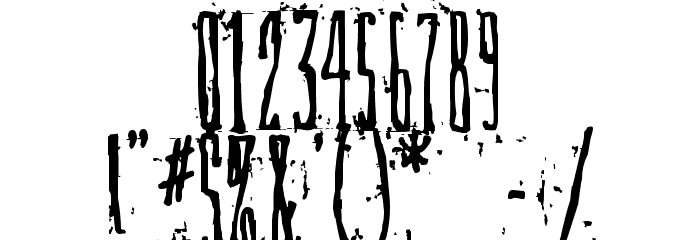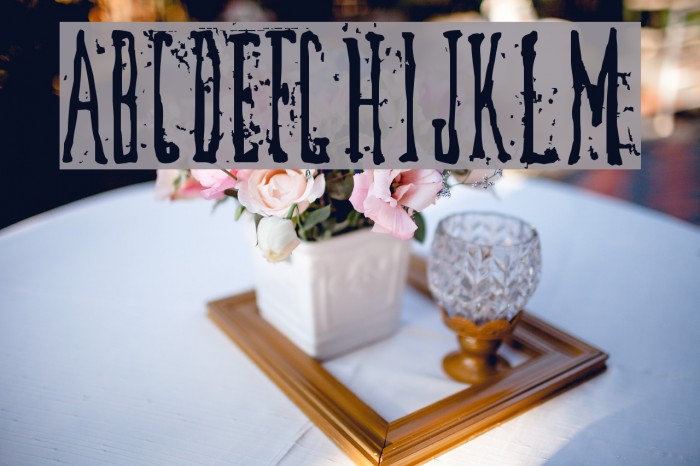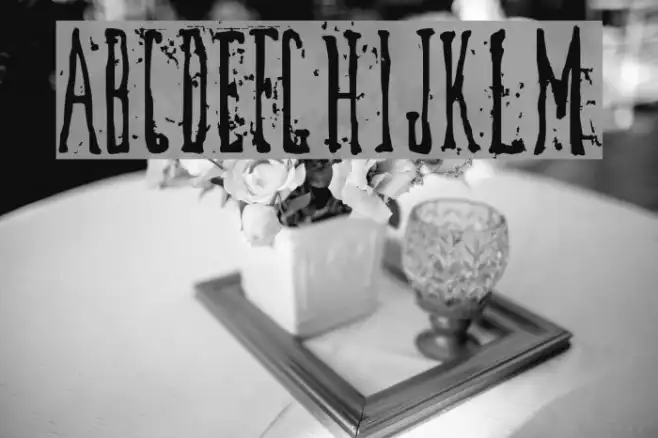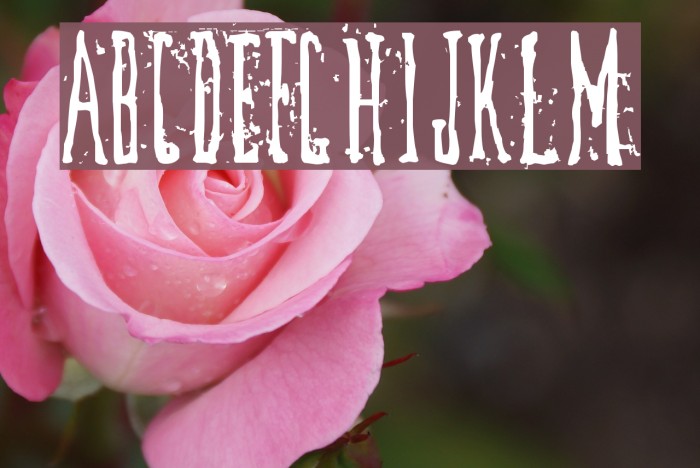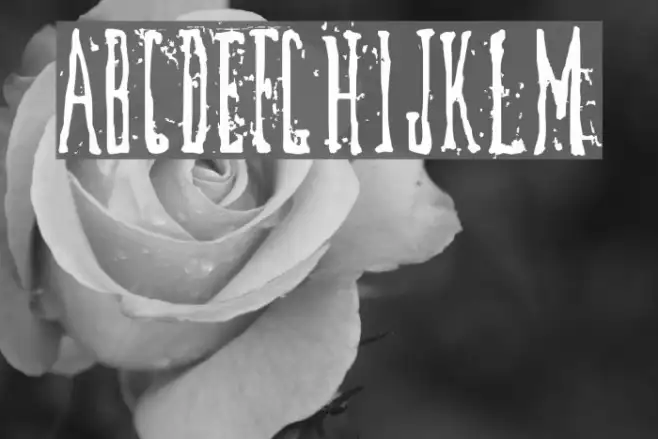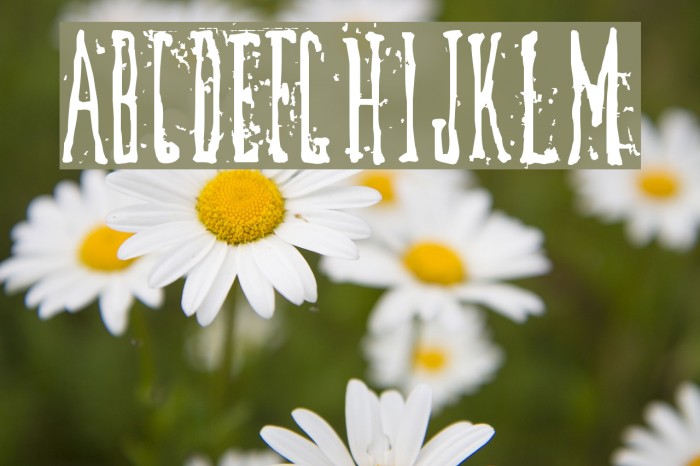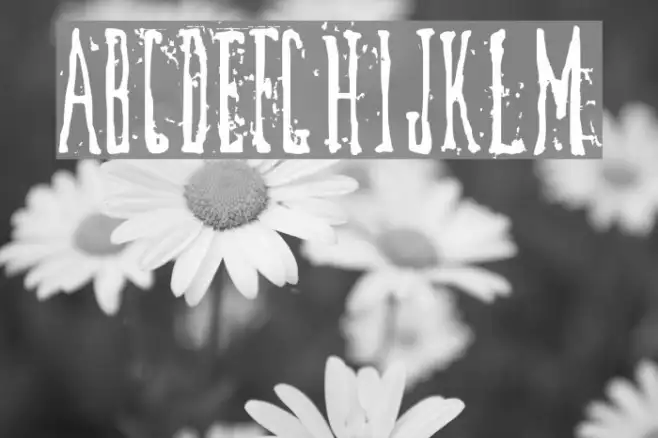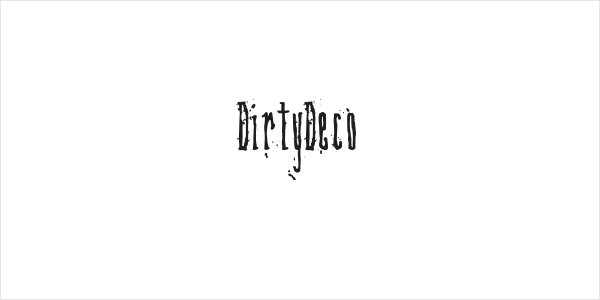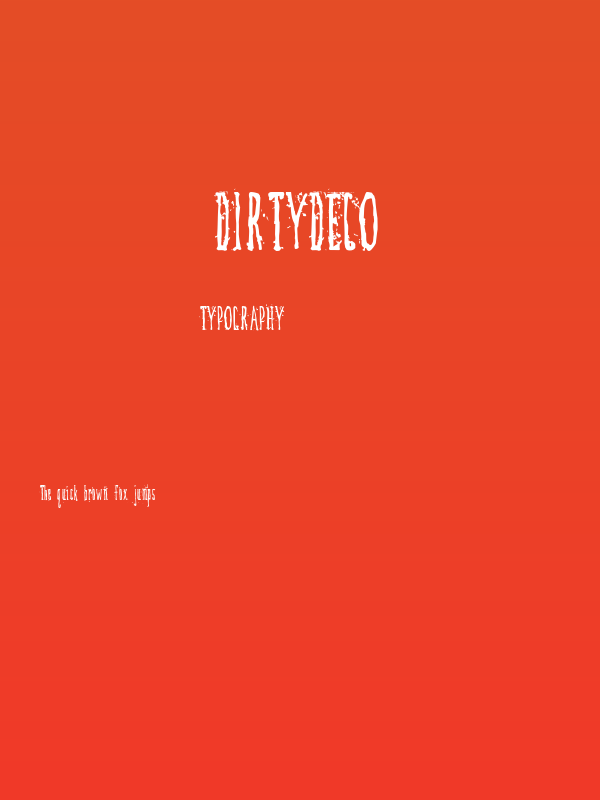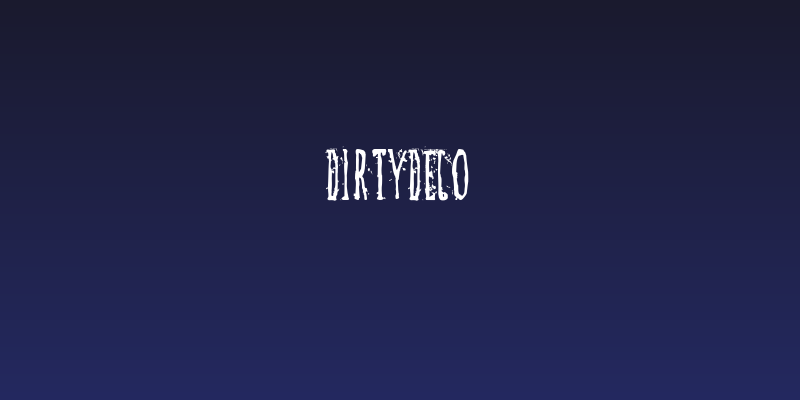
DirtyDeco Font
DirtyDeco Description
This font exhibits a distressed, grunge style with a worn and weathered appearance. The characters are tall and narrow, featuring irregular edges and a textured look that suggests erosion or decay. The uppercase and lowercase letters maintain a consistent height, contributing to a cohesive yet chaotic aesthetic. Numbers and special characters follow the same design principles, adding to the font's overall rugged and raw feel. This font is ideal for projects that require a vintage or industrial touch, offering a unique blend of elegance and edginess.
| Overall Style | Vintage, Grunge |
| Proposed Projects | Perfect for album covers, posters, branding for edgy or vintage-themed products, and any design needing a gritty, industrial vibe. |